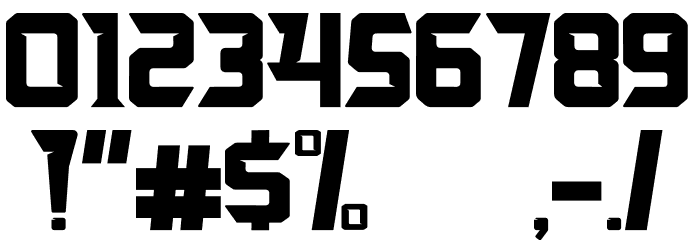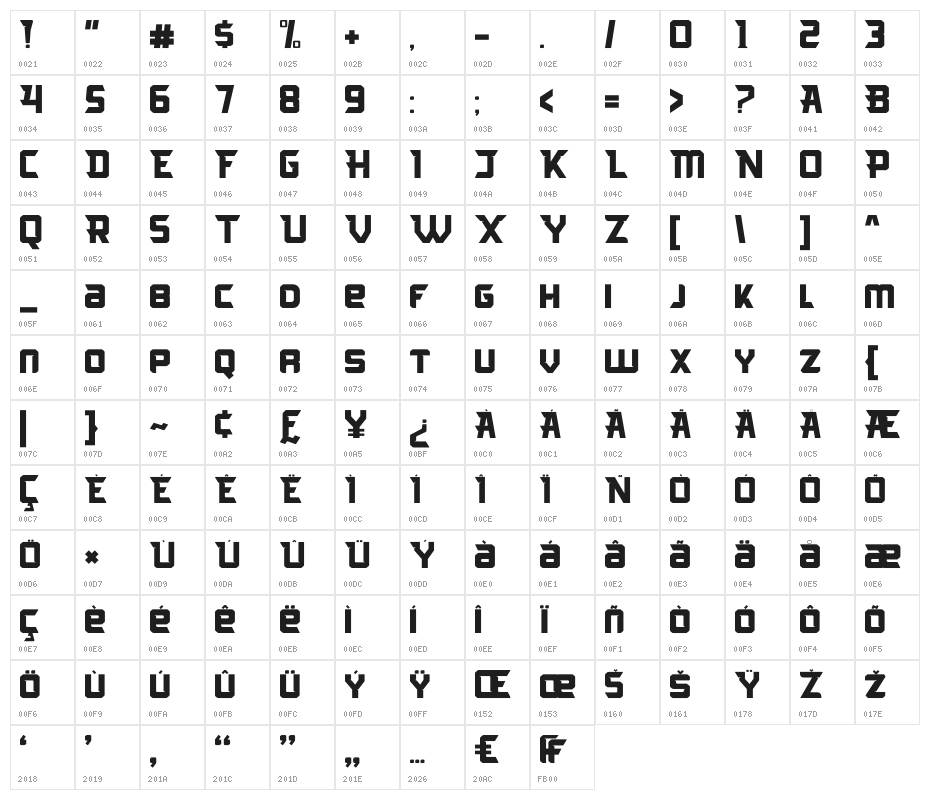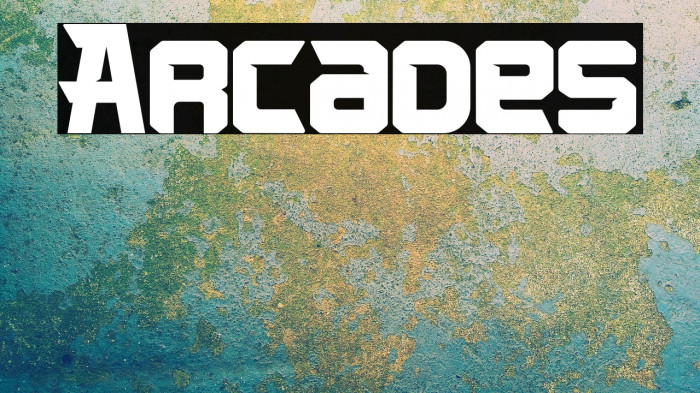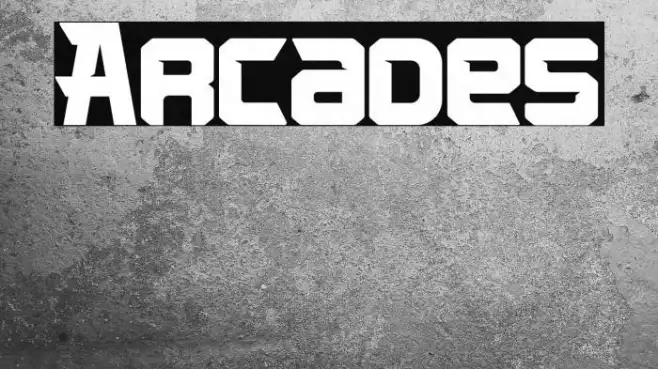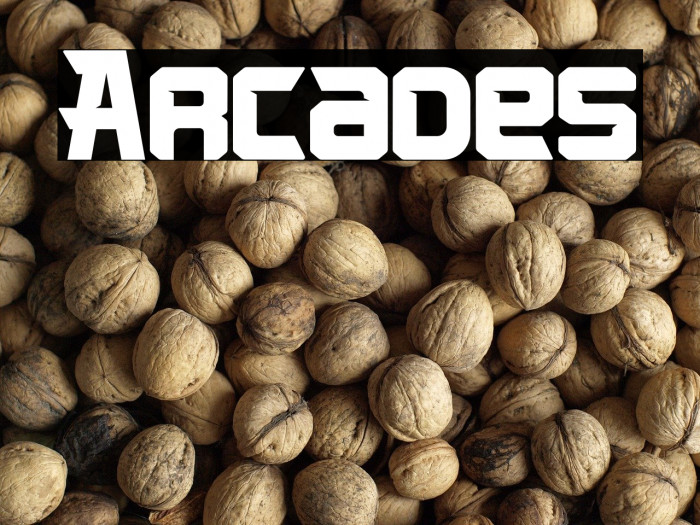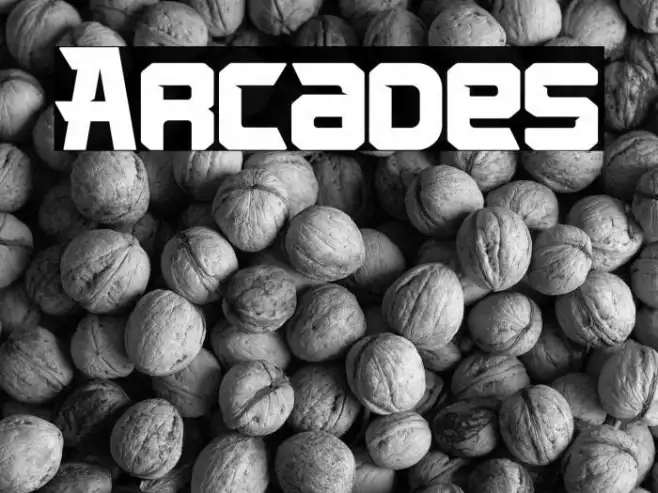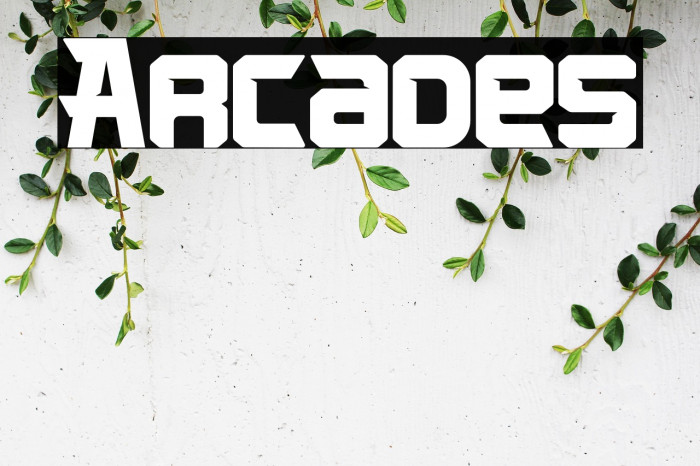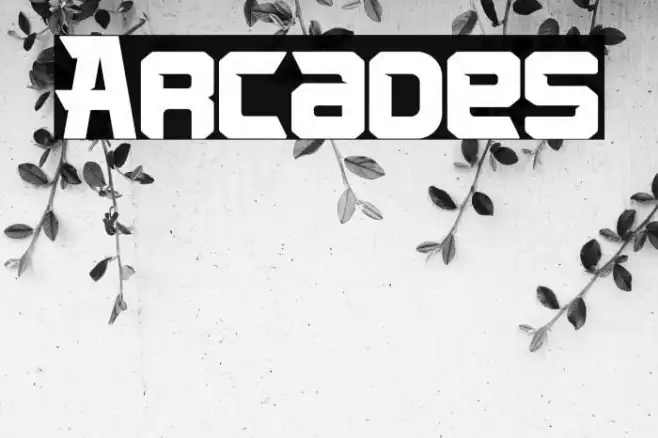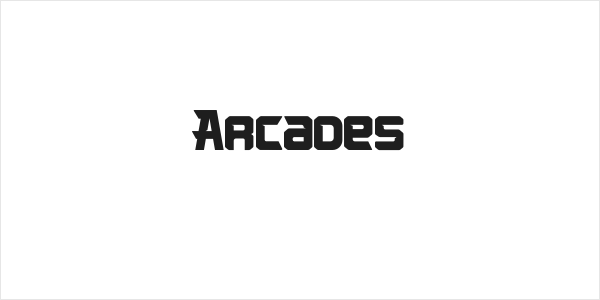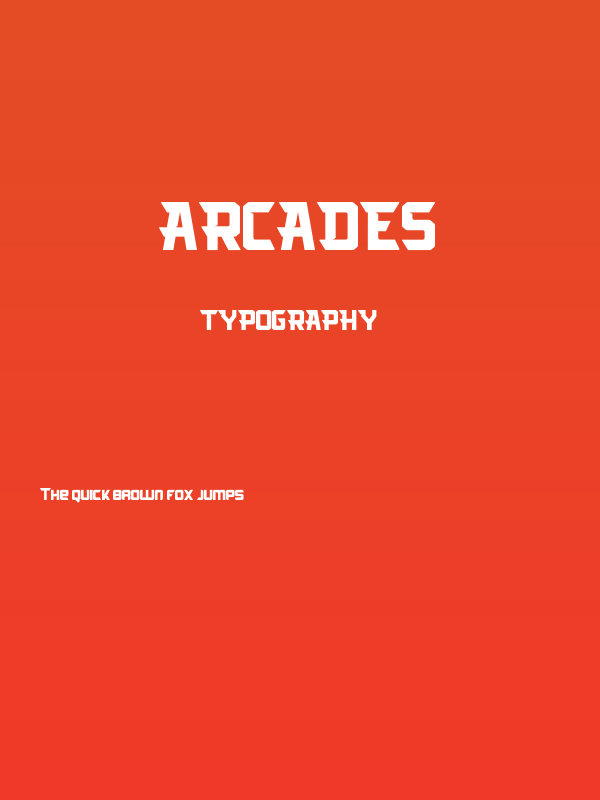
Arcades Font
Arcades Description
This font features a bold, geometric design with sharp angles and a futuristic aesthetic. The characters are blocky and robust, giving a sense of strength and modernity. The uppercase and lowercase letters maintain a consistent style, with a uniform height that enhances readability. Numbers and special characters follow the same angular theme, making them stand out. The font's unique style is reminiscent of arcade games and digital interfaces, making it ideal for projects that require a tech-savvy or retro-futuristic look.
| Proposed Projects | Ideal for video game titles, tech branding, posters, and digital interfaces. |